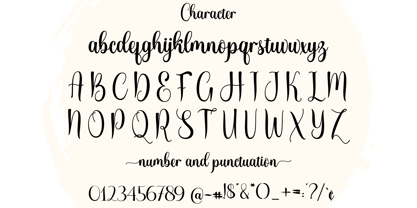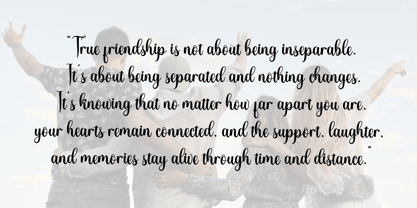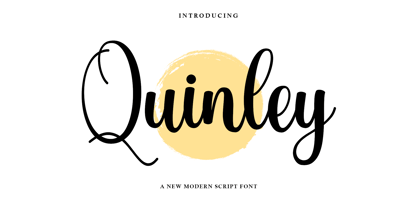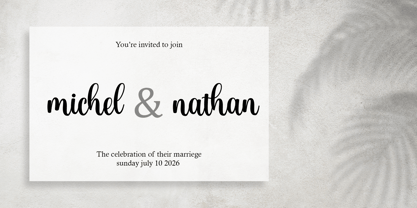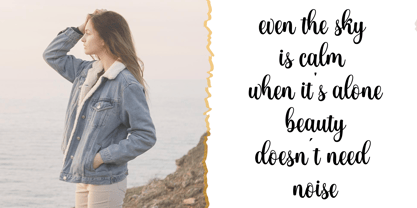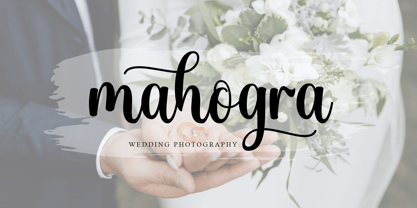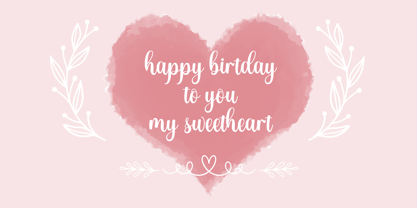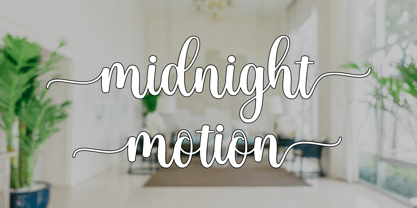
Quinley
por Luxe Vibes
La familia tipográfica Quinley fue diseñada por y publicada por Luxe Vibes. Quinley contiene 1 estilos. Más información sobre esta familia
Quinley is an elegant script font with a smooth, captivating handwritten style. Designed with graceful curves and soft pen strokes, Quinley delivers a timeless yet modern look perfect for branding, wedding invitations, boutique logos, luxury packaging, and inspirational quotes.
Its flowing letterforms and romantic calligraphic touches give Quinley a sense of refined sophistication while remaining approachable. The font includes multilingual support and comes with a variety of ligatures and stylistic alternates, allowing for greater design flexibility and a personal touch in every project.